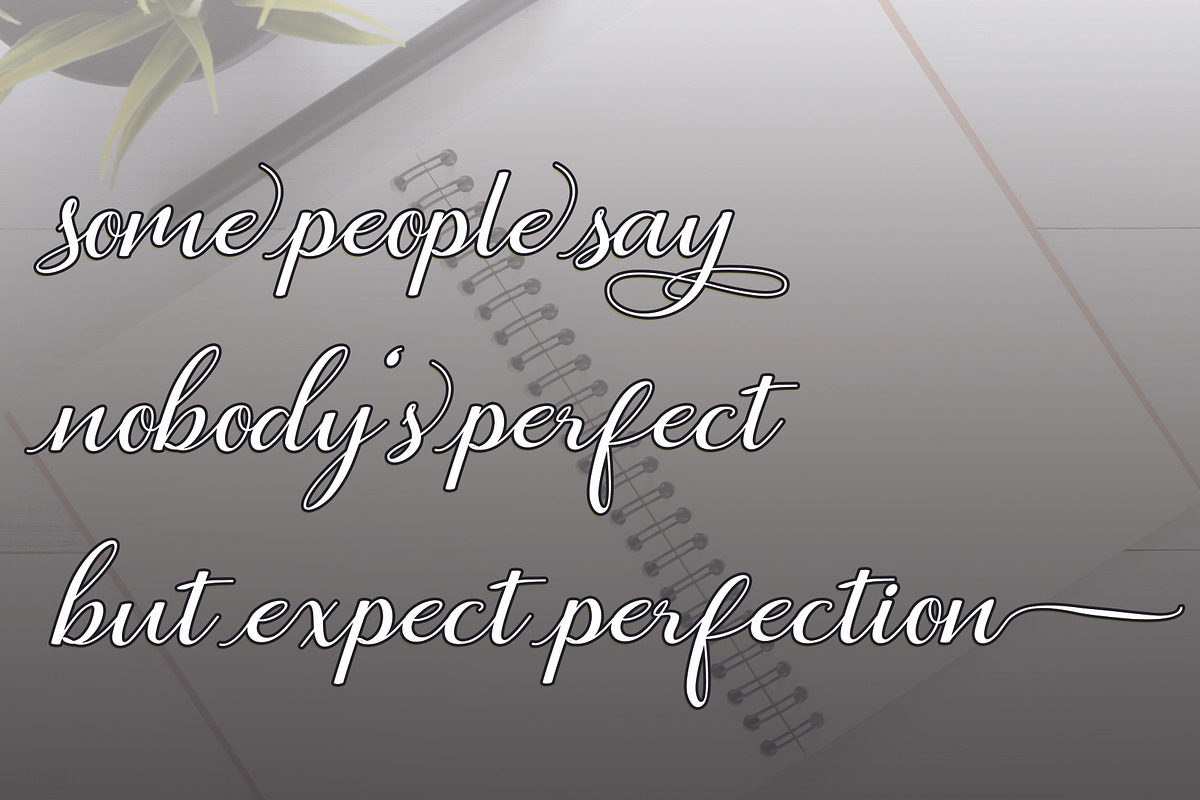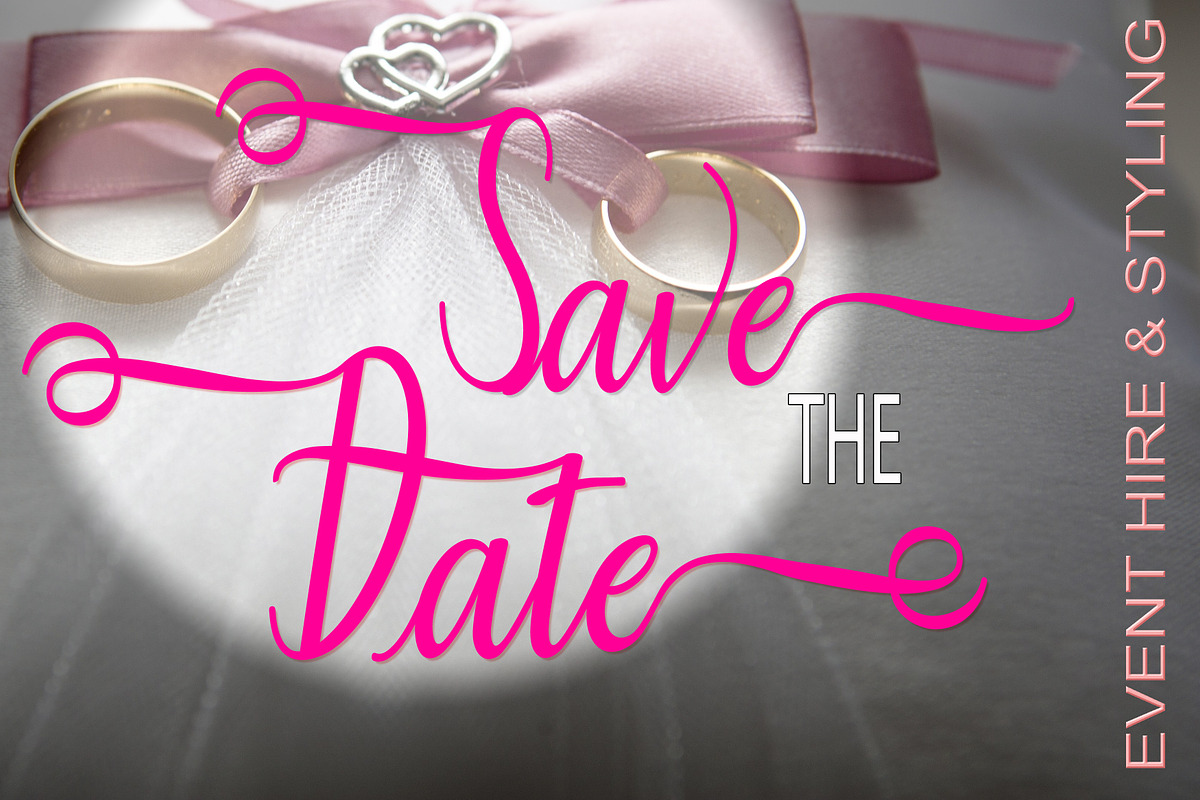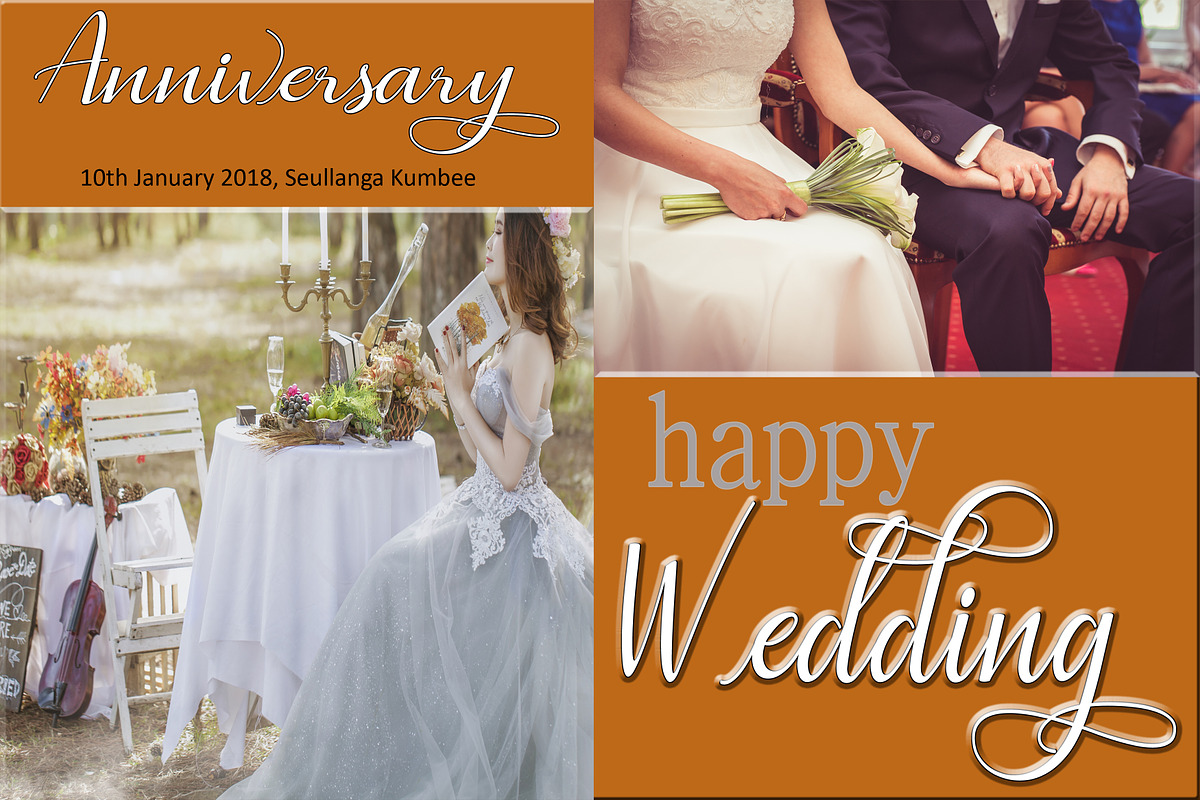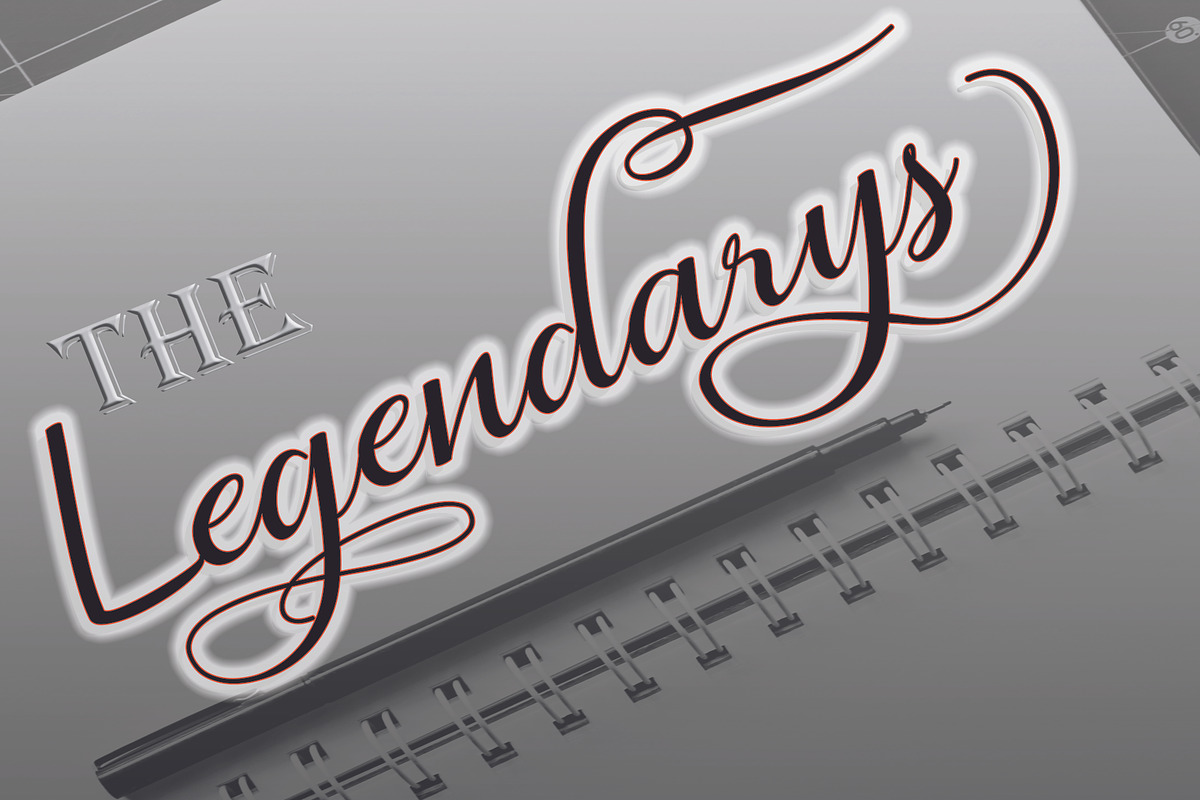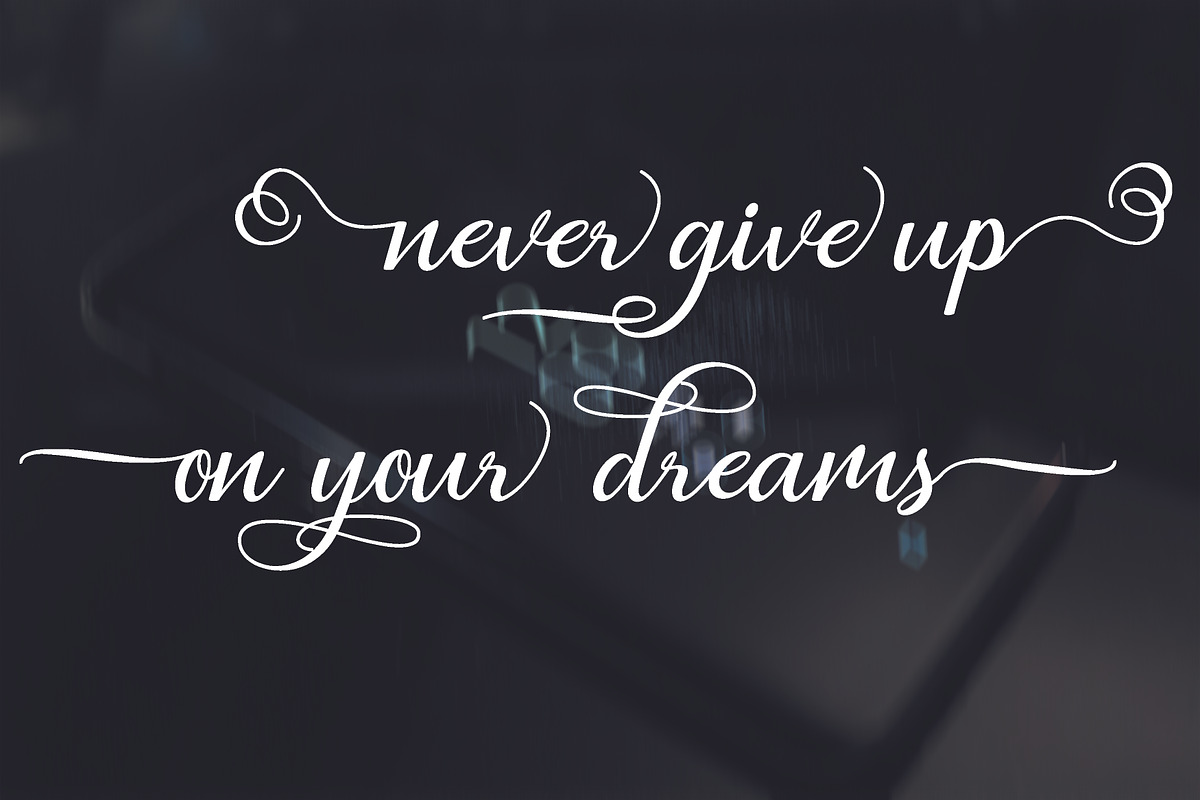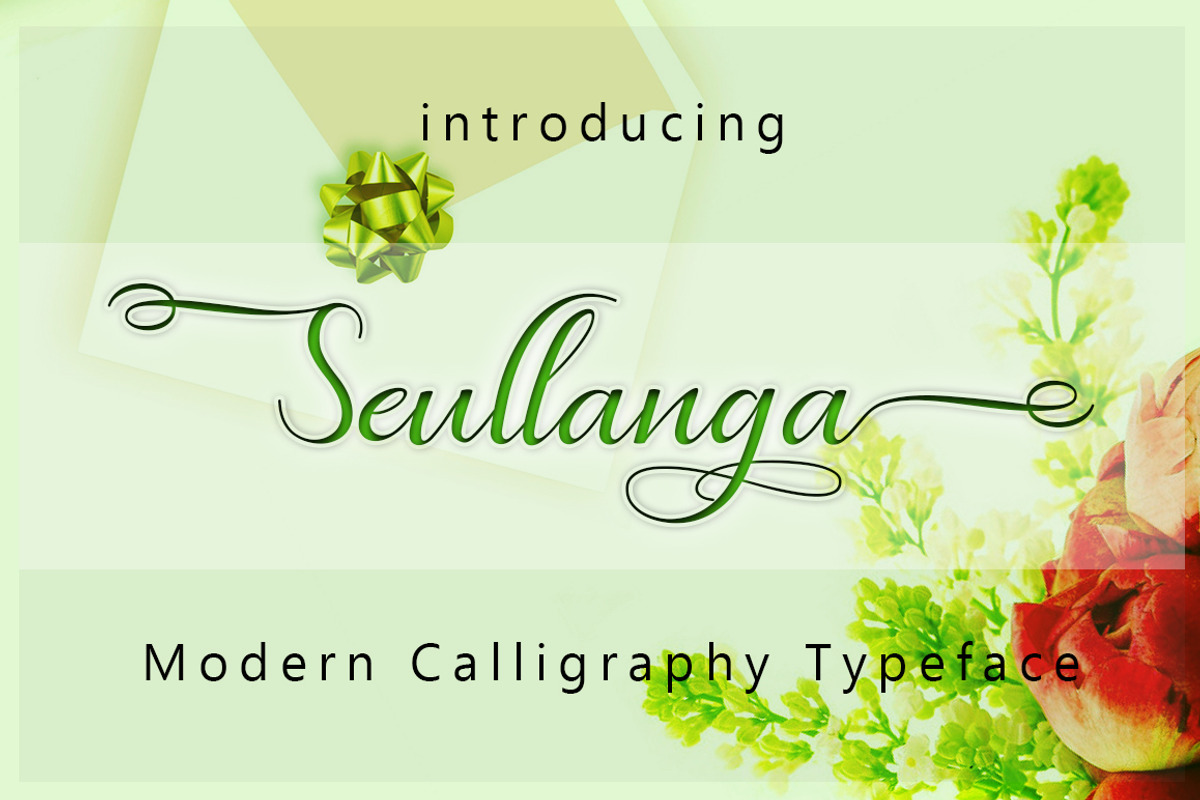
Seullanga Script Font
Seullanga Script a new fresh & modern script with a handmade calligraphy style, decorative characters and a dancing baseline! So beautiful on invitation like greeting cards, branding materials, business cards, quotes, posters, and more!!
Seullanga Script come with 450+ glyphs. The alternative characters were divided into several Open Type features such as Swash, Stylistic Sets, Stylistic Alternates, Contextual Alternates. The Open Type features can be accessed by using Open Type savvy programs such as Adobe Illustrator, Adobe InDesign, Adobe Photoshop Corel Draw X version, And Microsoft Word. And this Font has given PUA unicode (specially coded fonts). so that all the alternate characters can easily be accessed in full by a craftsman or designer.